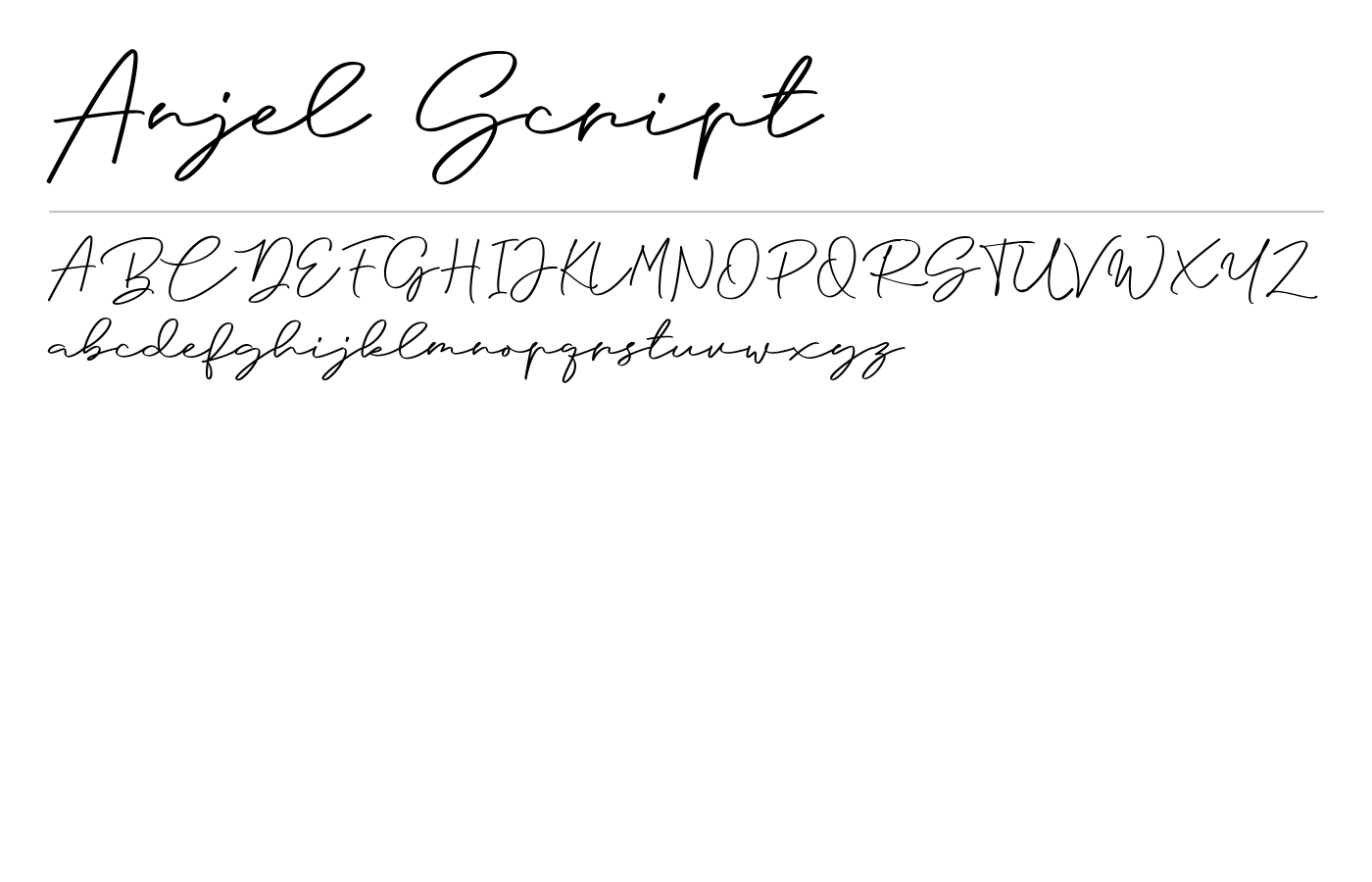
Anjel Script is a delicate and flowing handwritten script font characterized by its light weight and elegant, slightly irregular strokes that mimic natural handwriting. Its tall, narrow letterforms with subtle loops and smooth connections give it a personal and graceful feel, making it perfect for invitations, branding, and creative projects that require a touch of sophistication and warmth. This font works beautifully in contexts where a stylish yet approachable handwritten look is desired.
Anjel Script Font
About Anjel Script Font
| Font family | Anjel Script Font |